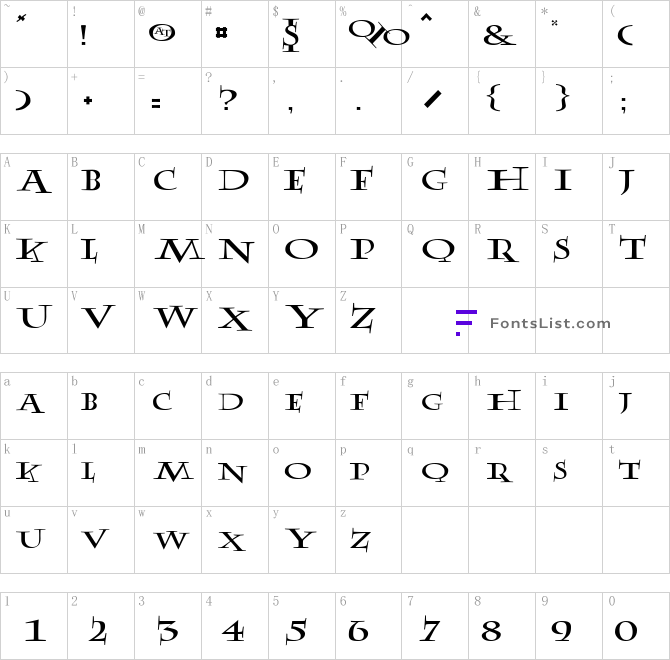
AblefontA.ttf is a very beautiful artistic font, AblefontA.ttf is widely used in the design and printing of various books and pictures,AblefontA.ttf has a strong visual impact,AblefontA.ttf is a commonly used font in newspapers, magazines and books, and is used in posters, e-commerce Poster design, store design, logo design, font design and other fields.AblefontA.